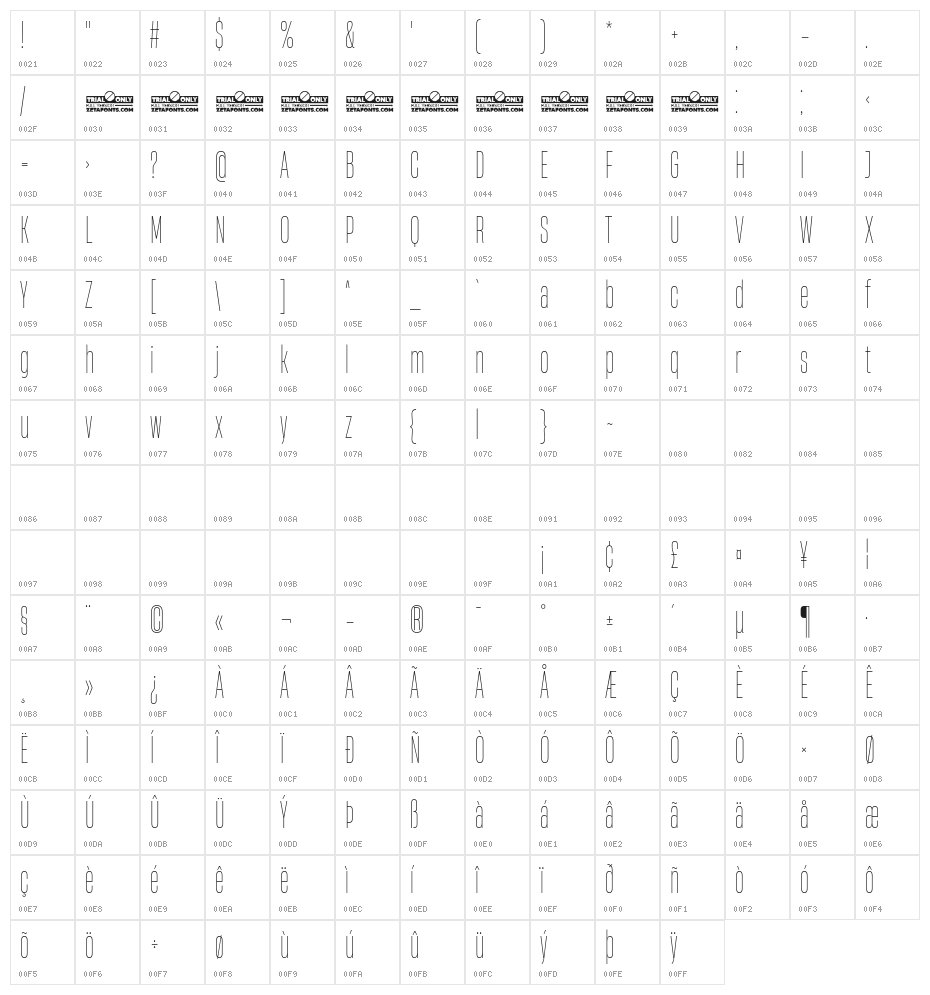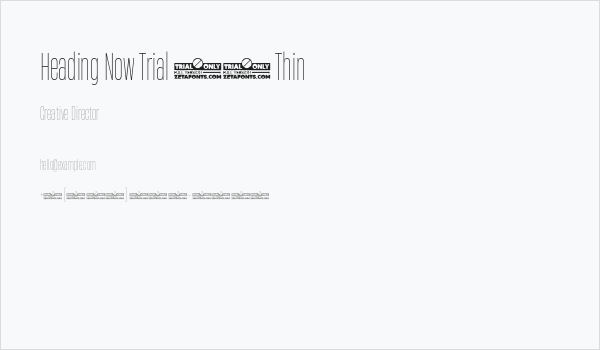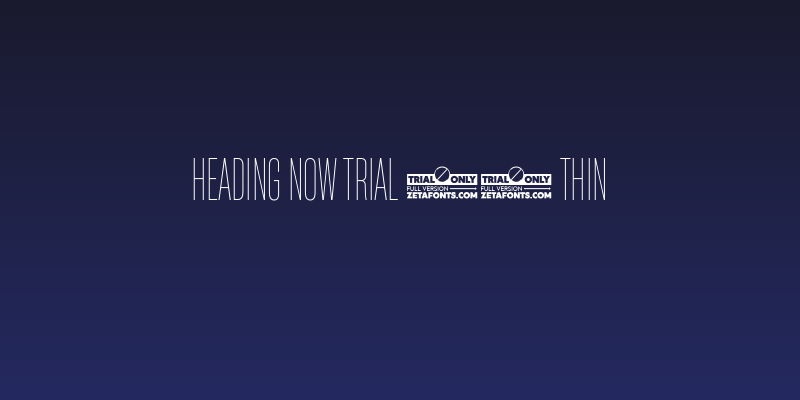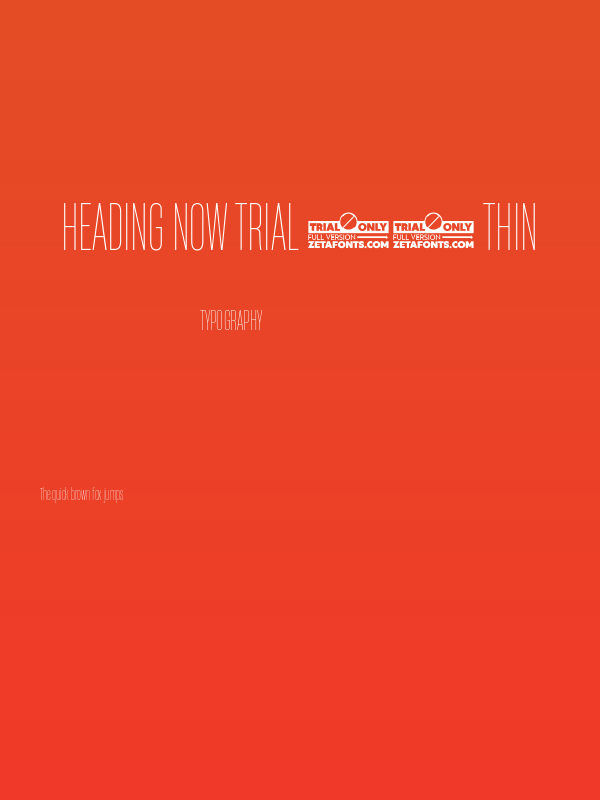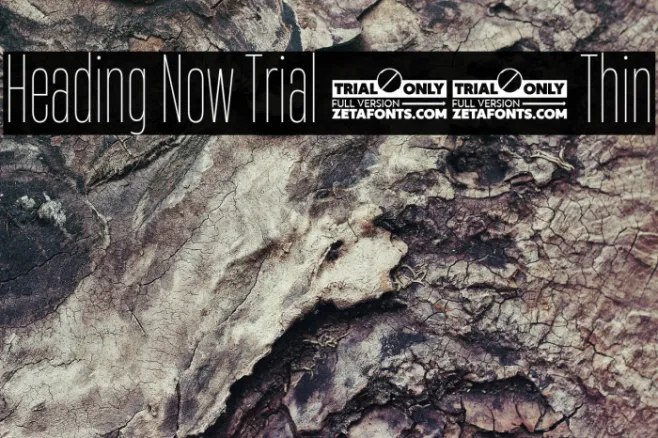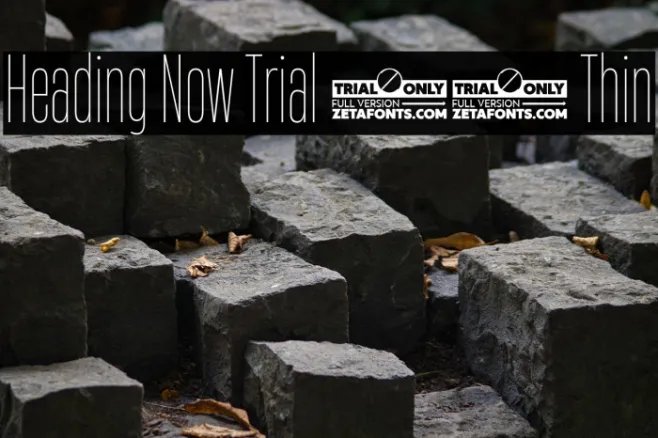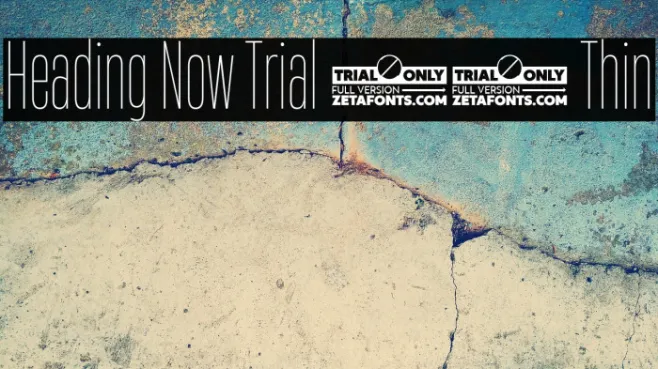
Heading Now Trial 21 Thin Font
Heading Now Trial 21 Thin Description
This font exhibits a sleek and modern design with elongated, thin letterforms that convey a sense of elegance and sophistication. The uppercase and lowercase letters maintain a consistent height, contributing to a uniform appearance. The characters are narrow, enhancing the font's condensed style, while the minimal stroke contrast adds to its contemporary feel. The special characters and numerals are designed to match the overall thin and streamlined aesthetic, making it suitable for a variety of design applications.
| Proposed Projects | Ideal for fashion magazines, luxury branding, minimalist posters, and modern web design. |